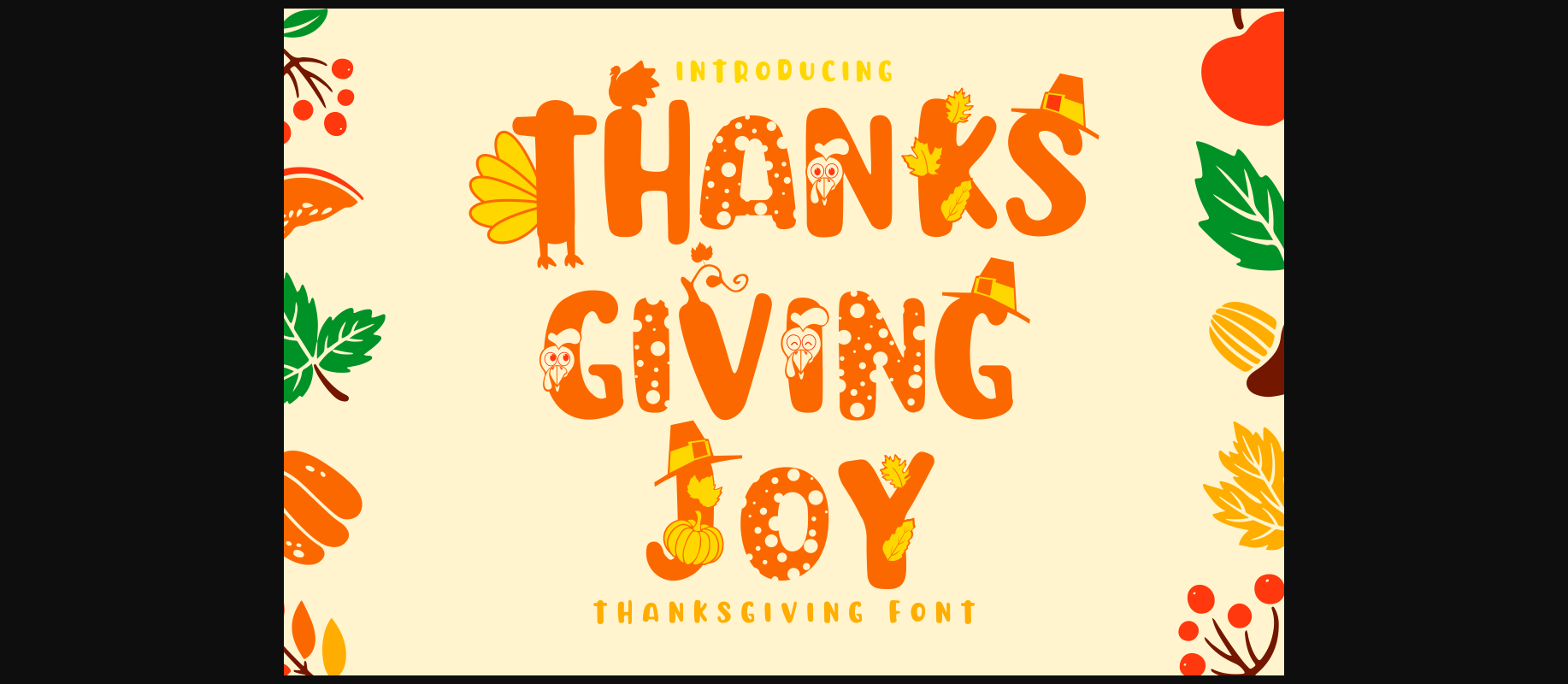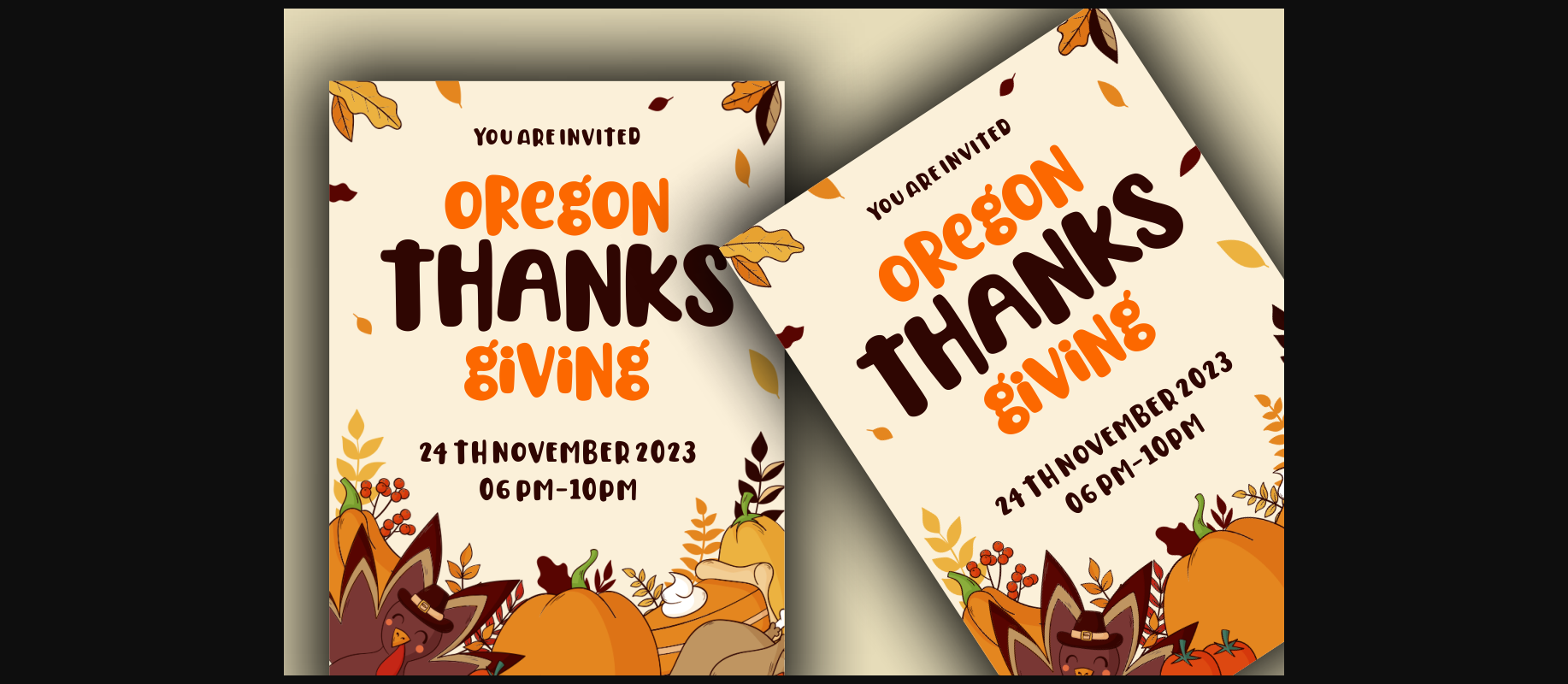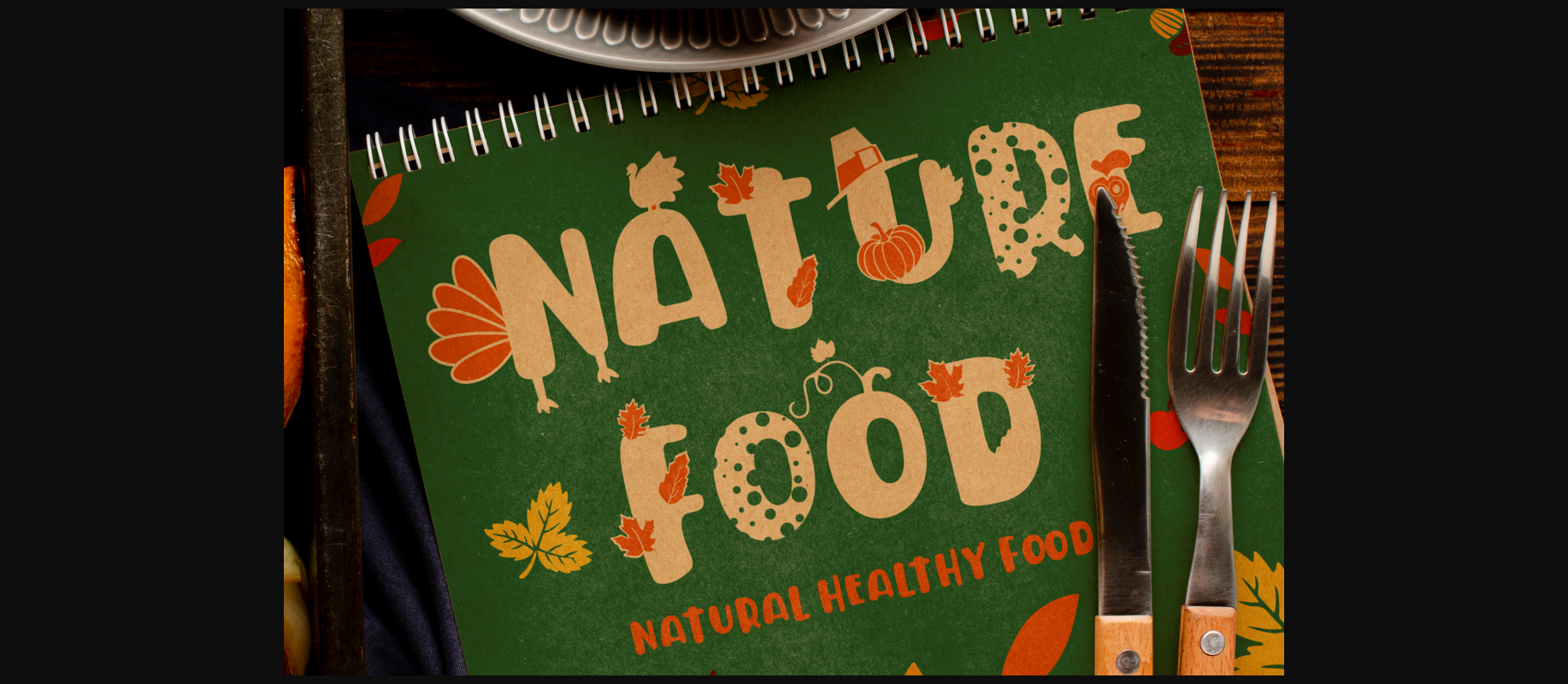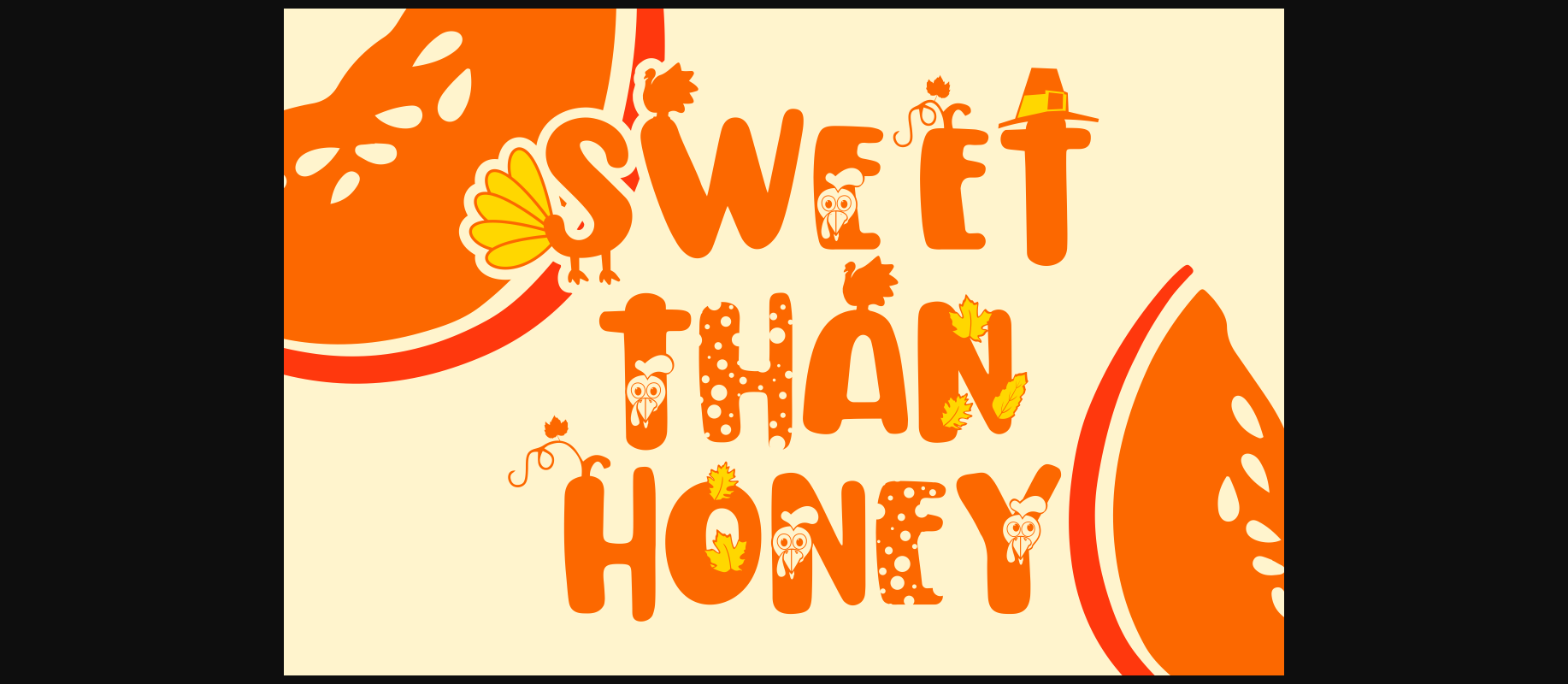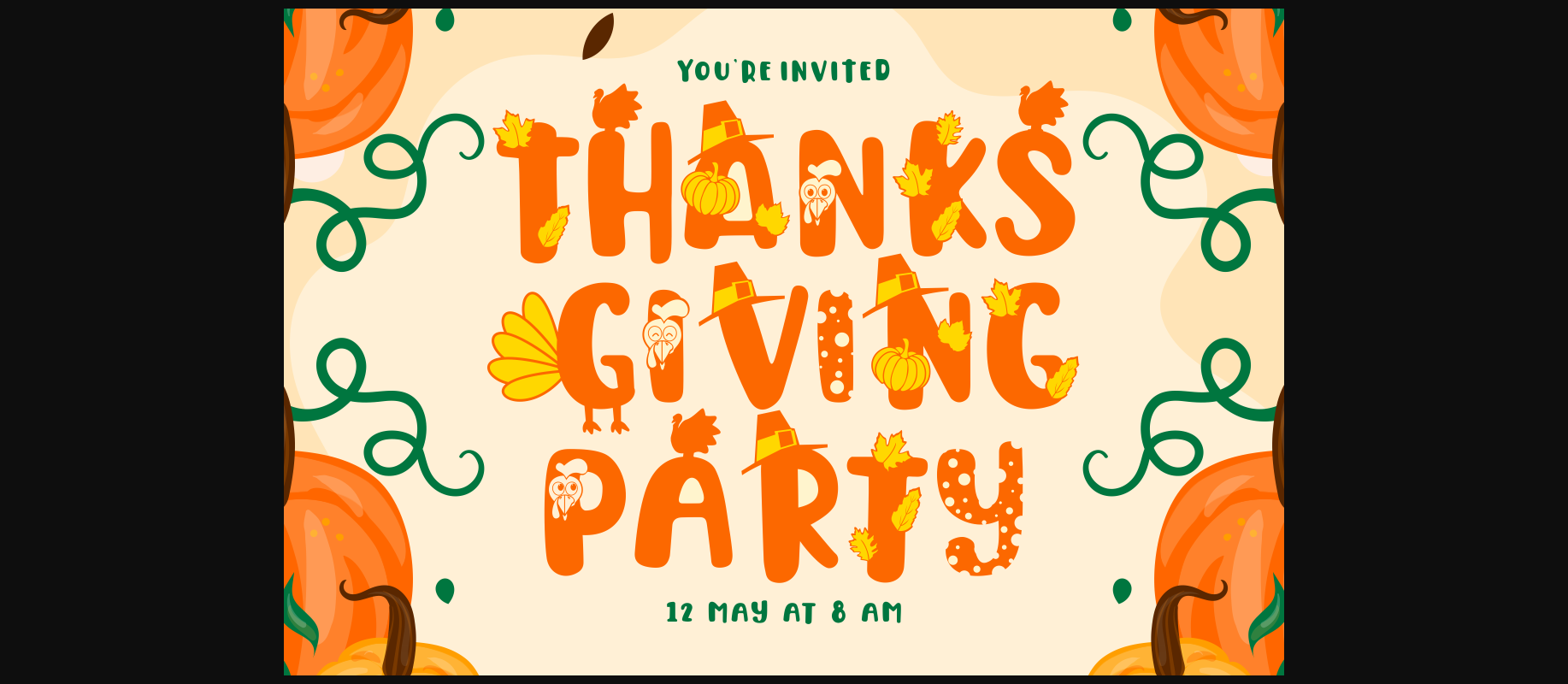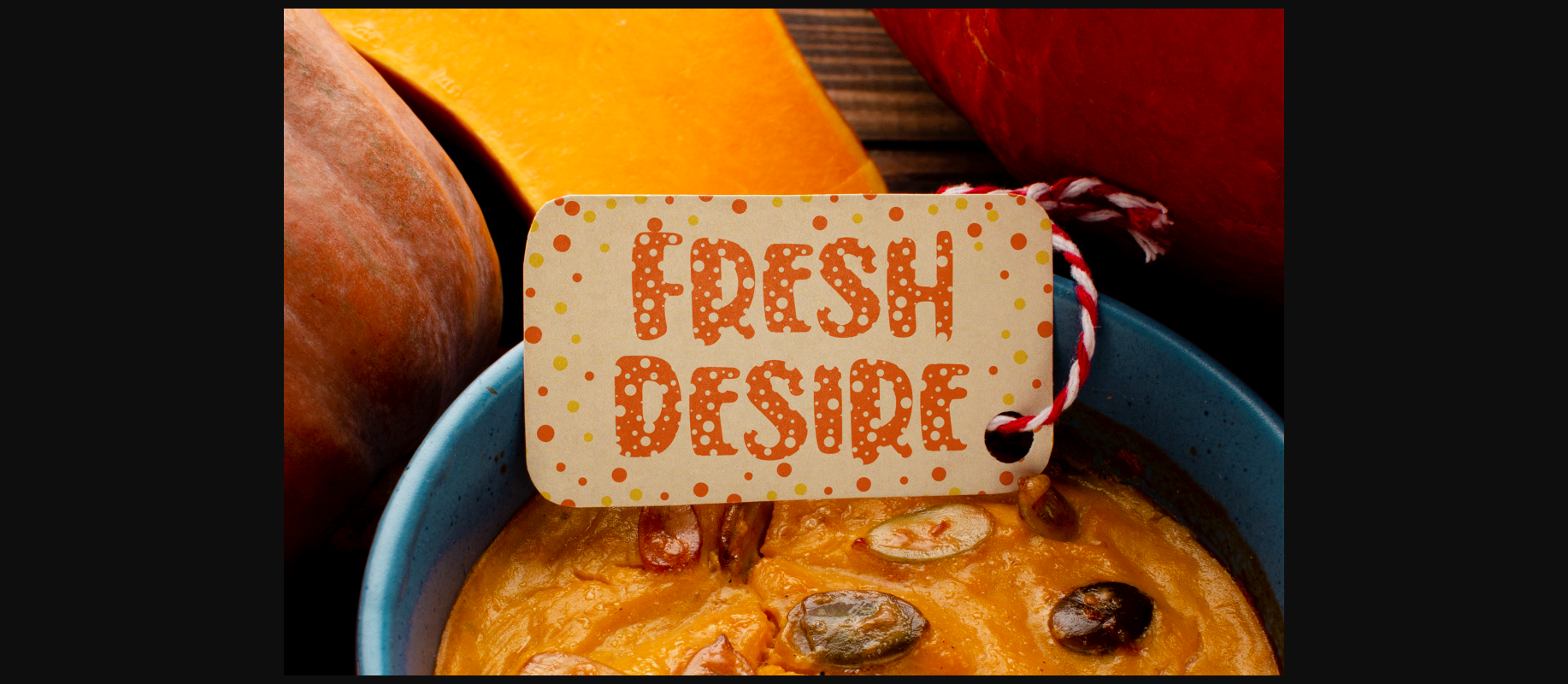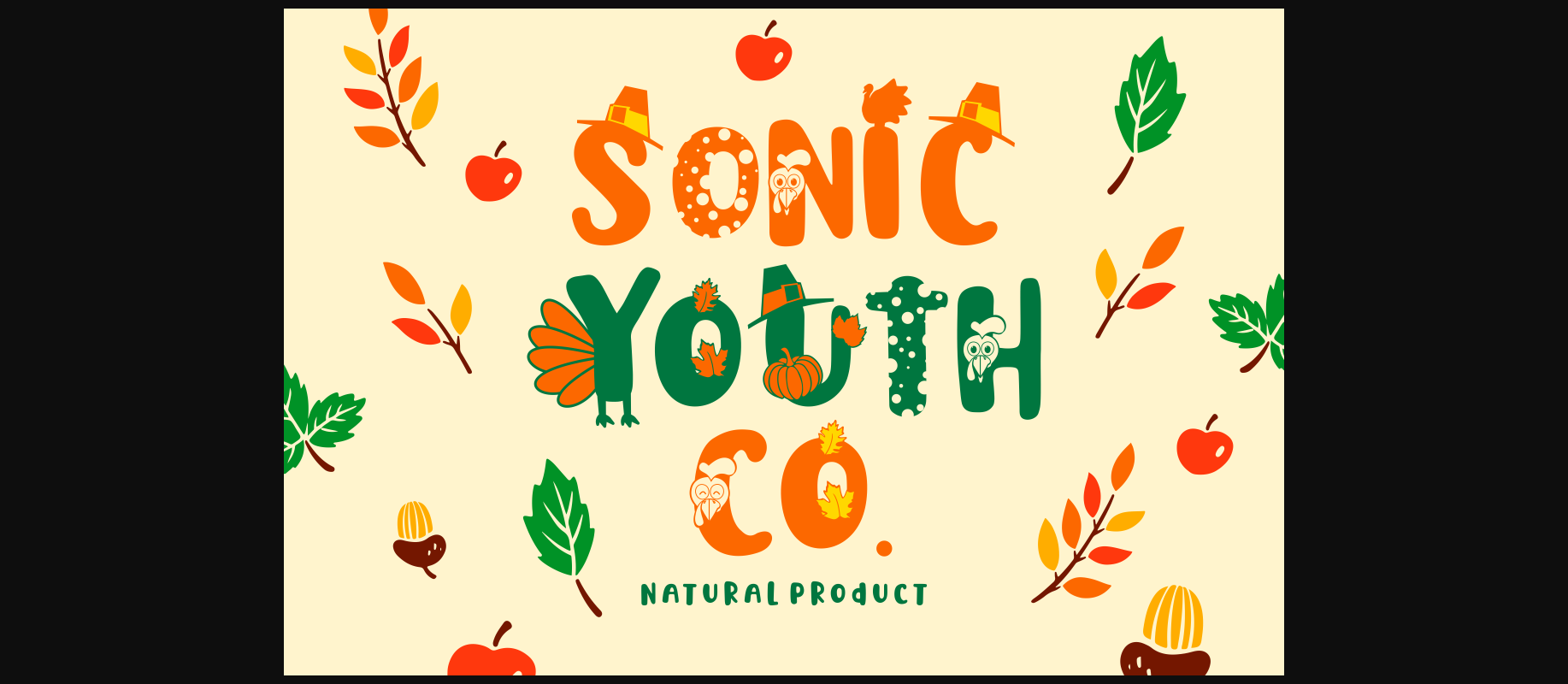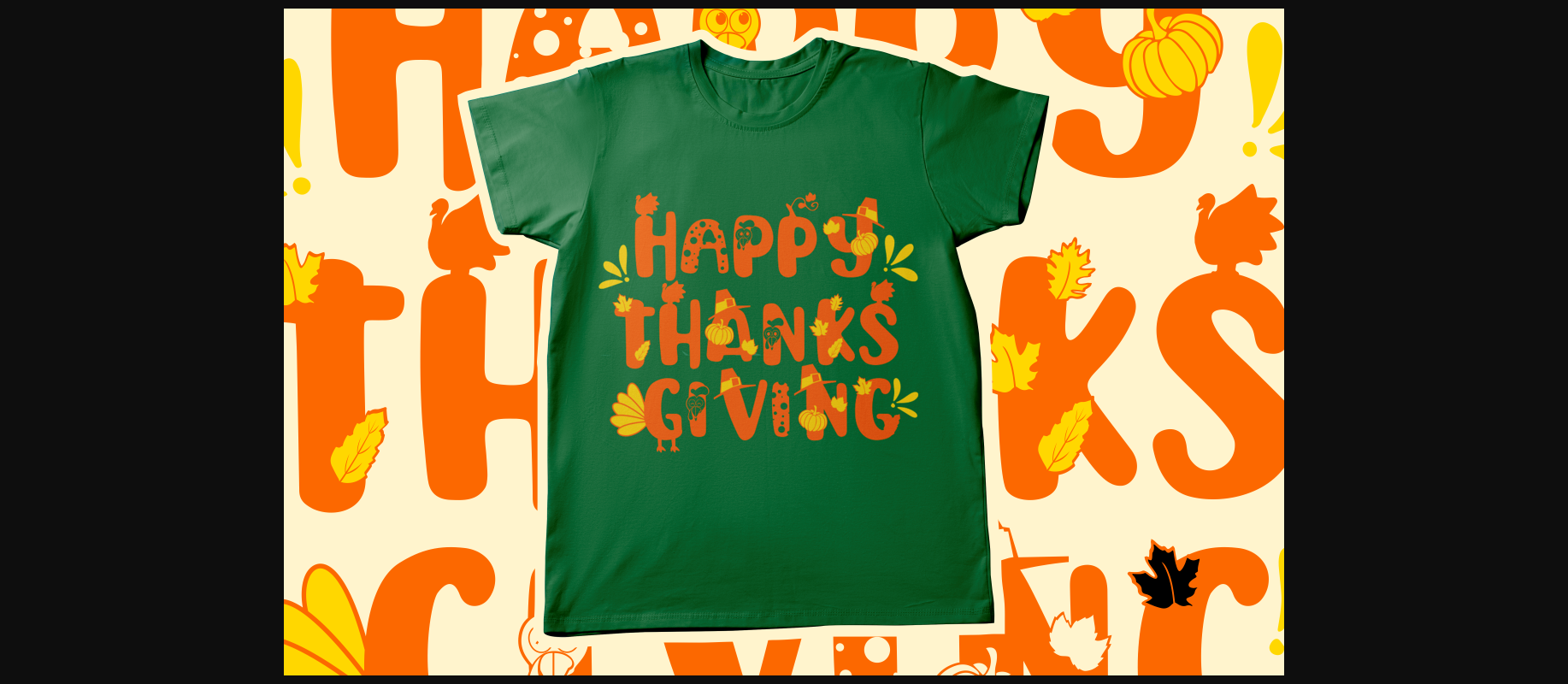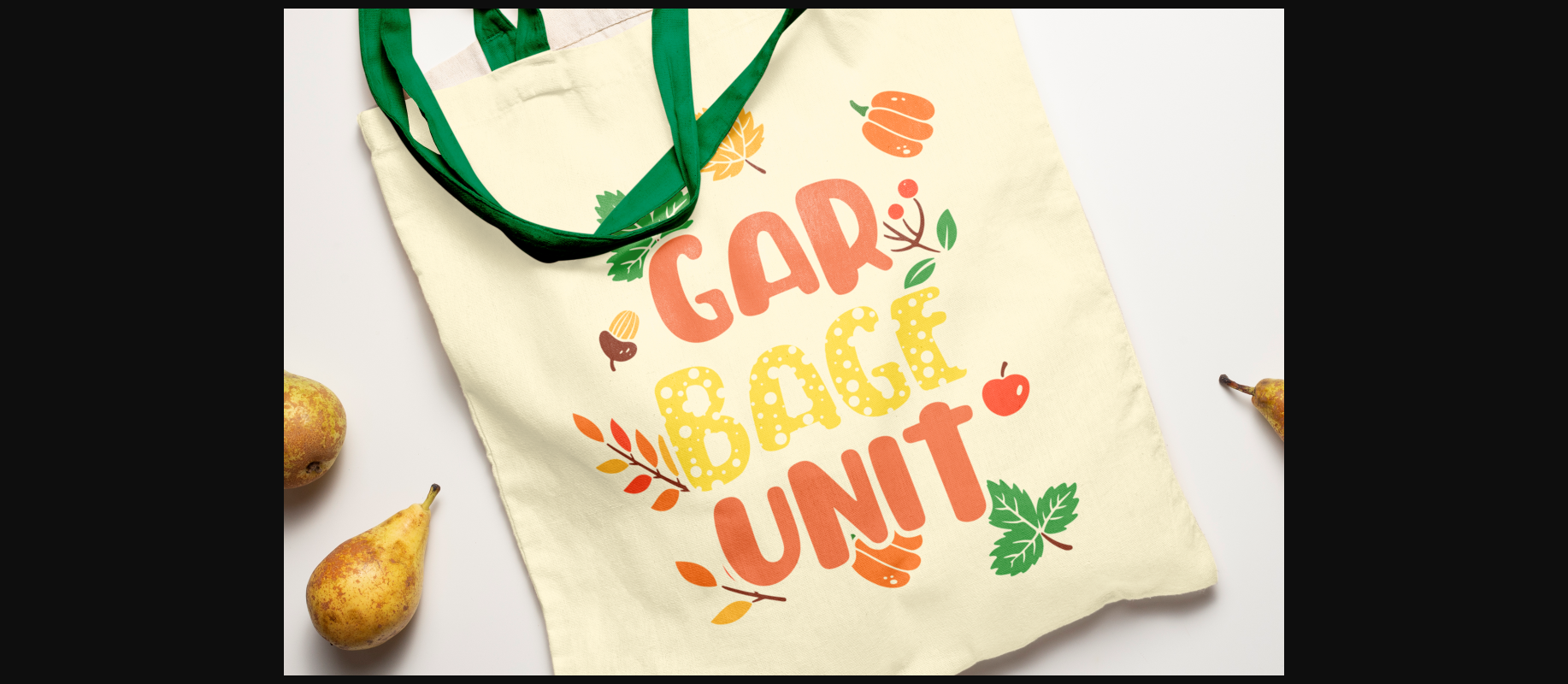
Thanksgiving Joy Font
About Thanksgiving Joy Font
Thanksgiving Joy – Various Fun Font is a whimsical and playful typeface designed to celebrate the spirit of Thanksgiving. With its rounded and friendly characters, this font adds an element of fun and warmth to your designs, making it a perfect choice for projects related to this special holiday.
This font boasts nine delightful decorative variations, each inspired by different Thanksgiving motifs like turkey, pumpkins, pie, leaves, and hats. It’s an ideal font for creating Thanksgiving-themed designs, including invitation cards, birthday invites with a Thanksgiving theme, party decorations, logos, stickers, clothing, packaging, children’s books, magazines, and more.
With its charming and playful style, Thanksgiving Joy captures the essence of gratitude, celebration, and the joy of Thanksgiving, making it an ideal choice for any project that aims to bring the warmth of this holiday to life